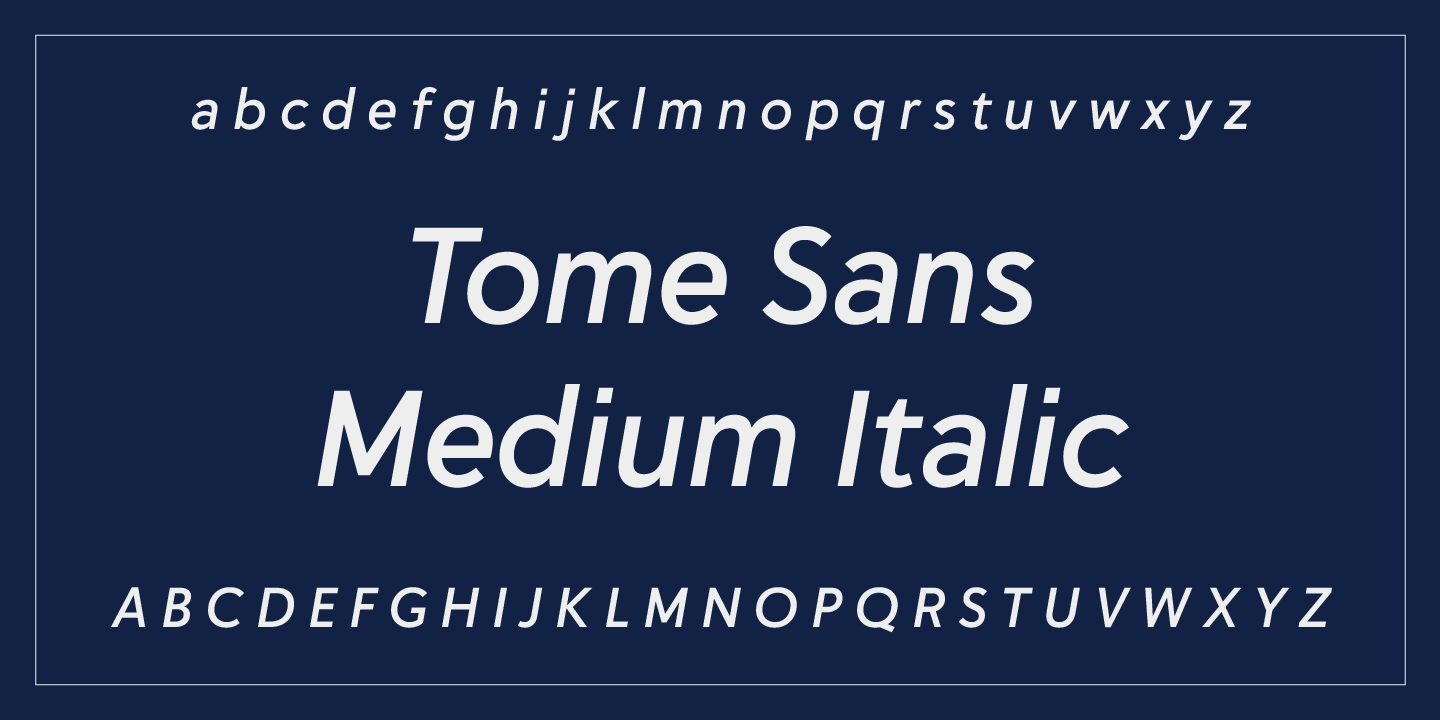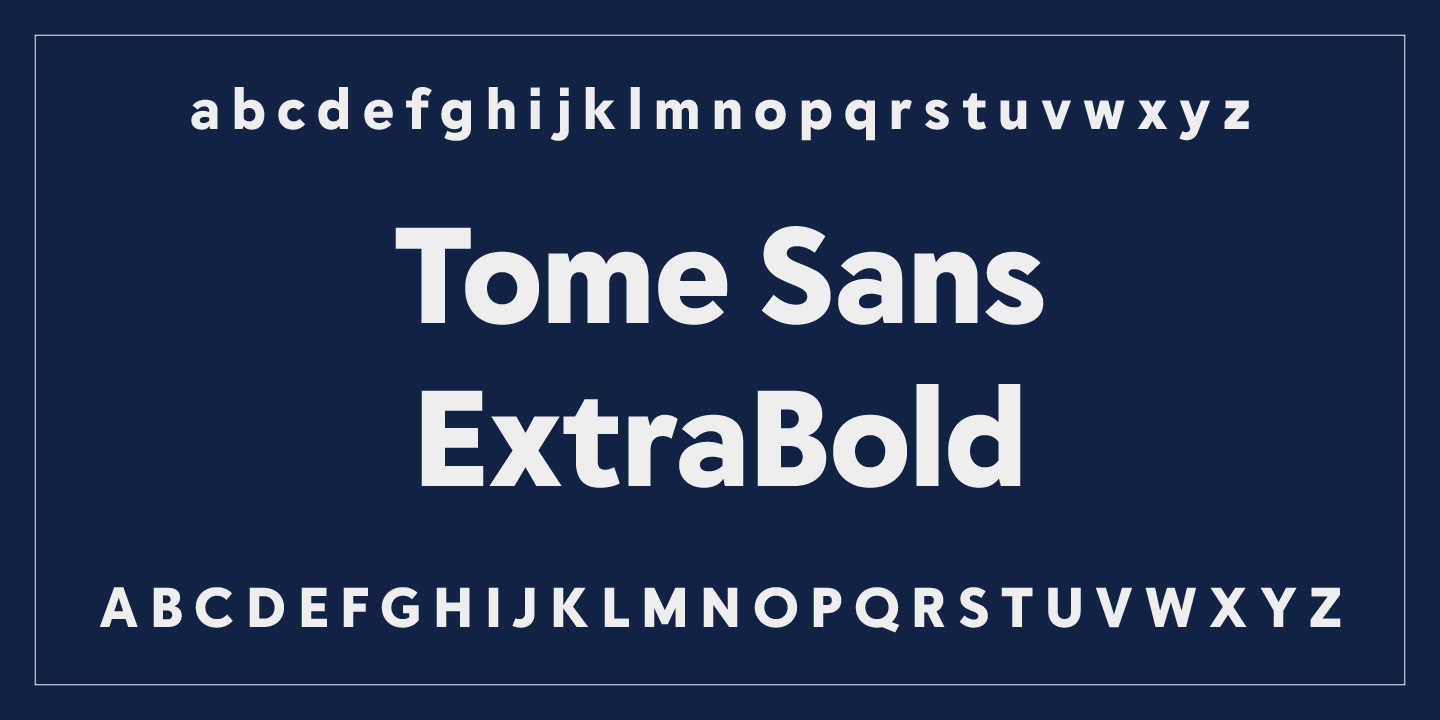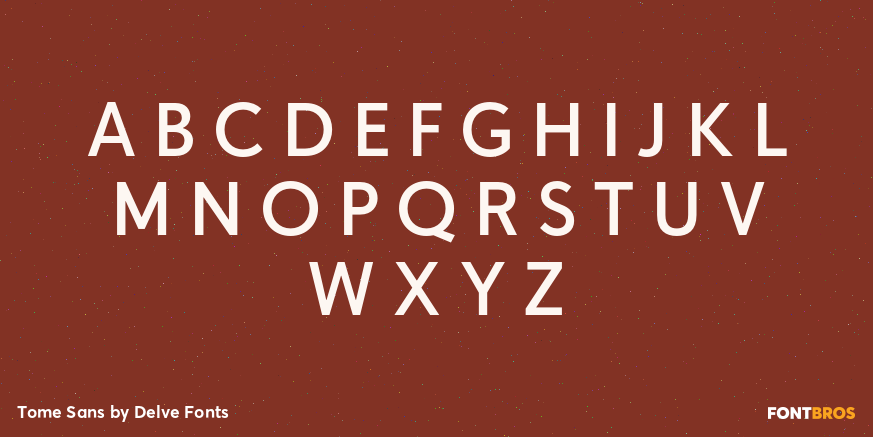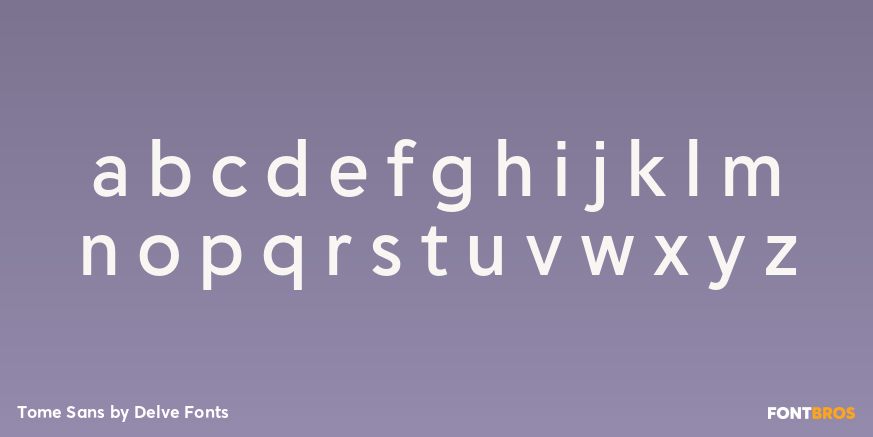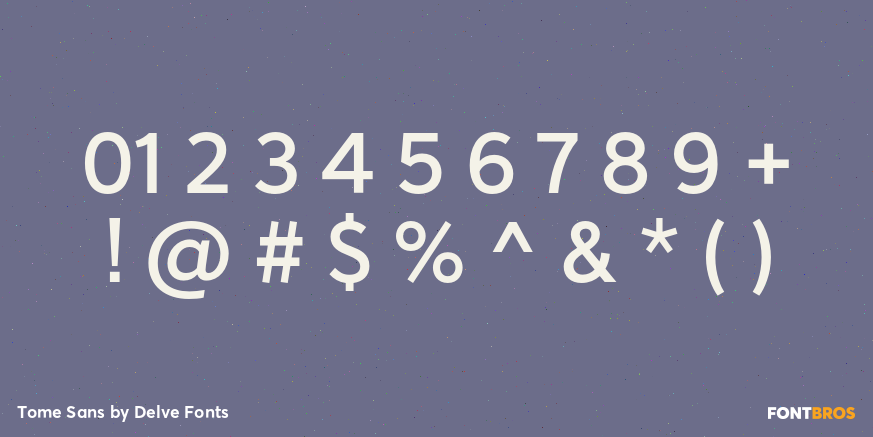
Tome Sans
Font Family by Delve Fonts
Tome Sans was created to be an inconspicuous sans-serif that performs beautifully across multiple environs. Tome Sans does not bring attention to itself and it does subscribe to trends; rather, it is a more timeless design. Tome Sans has 10 weights ranging from ExtraThin to Black with companion italics and boasts an glyph repertoire of 875 glyphs. Among those glyphs are several sets of numerals (including Tabular and Oldstyle figures), arrows, and a trove of letters spanning several complete Unicode